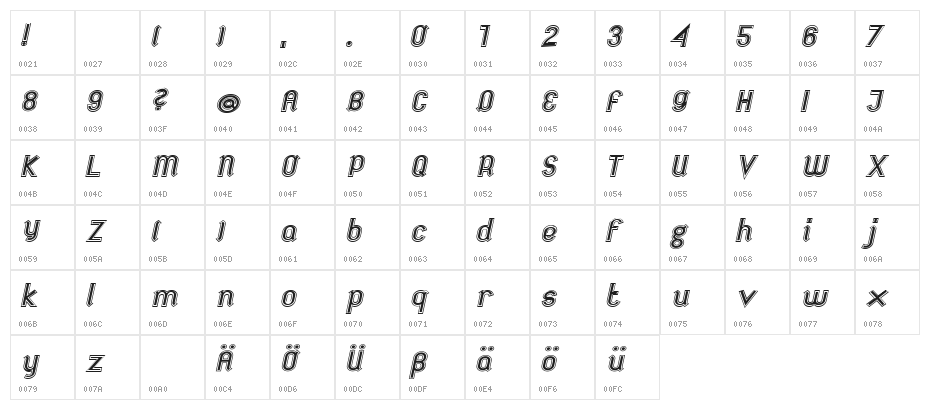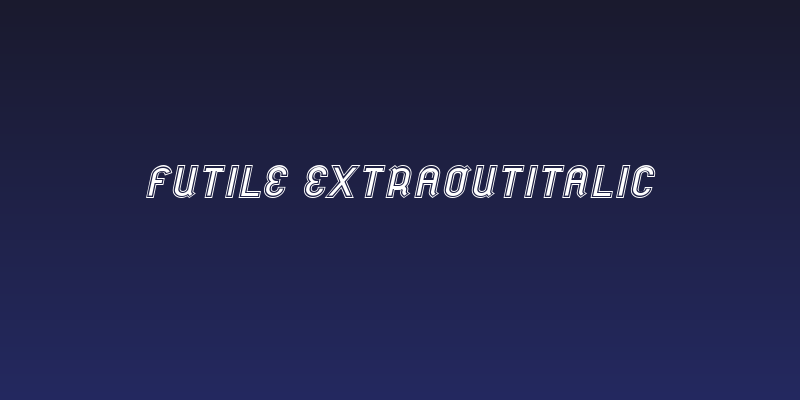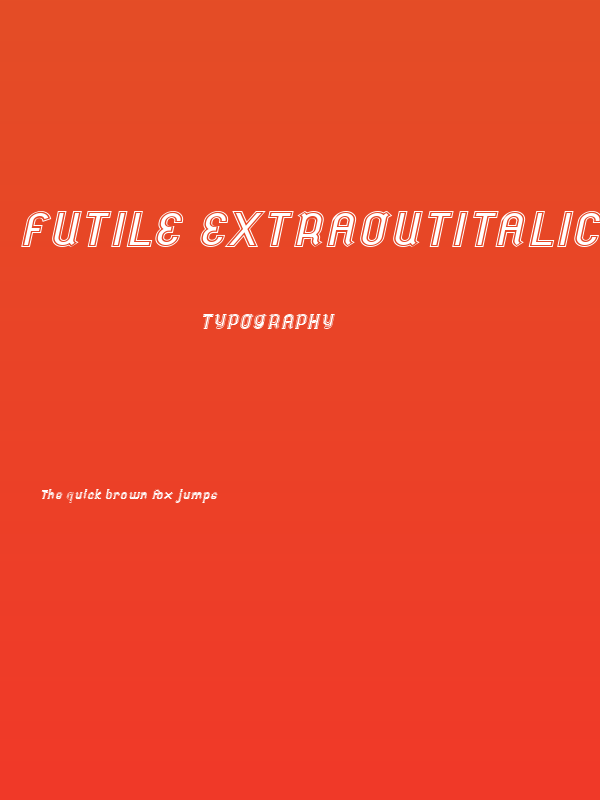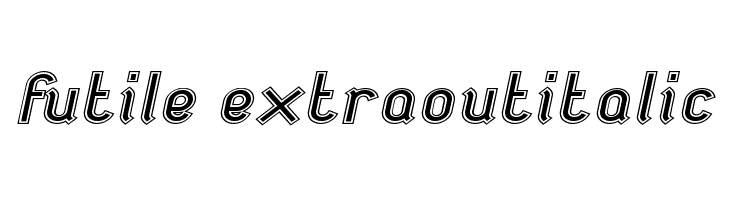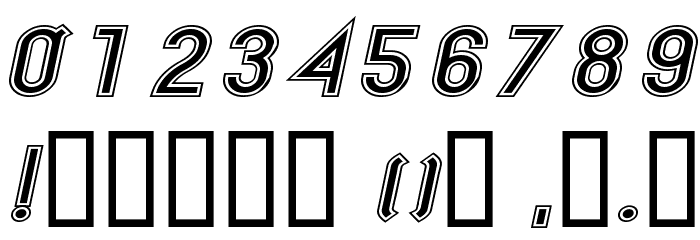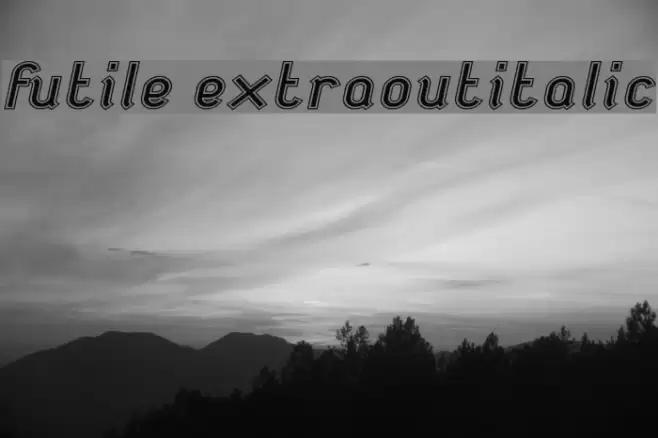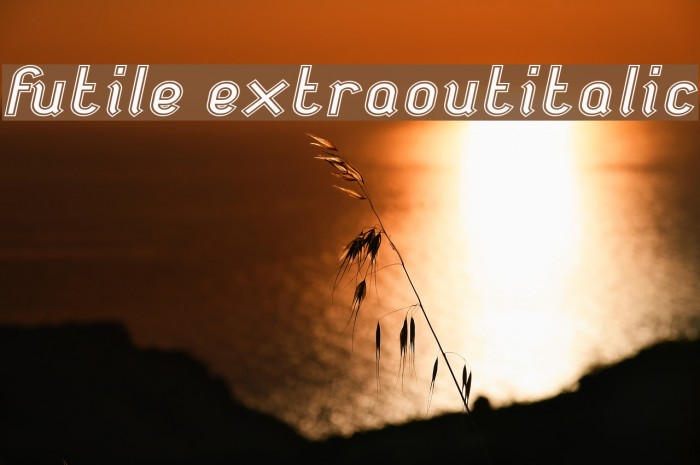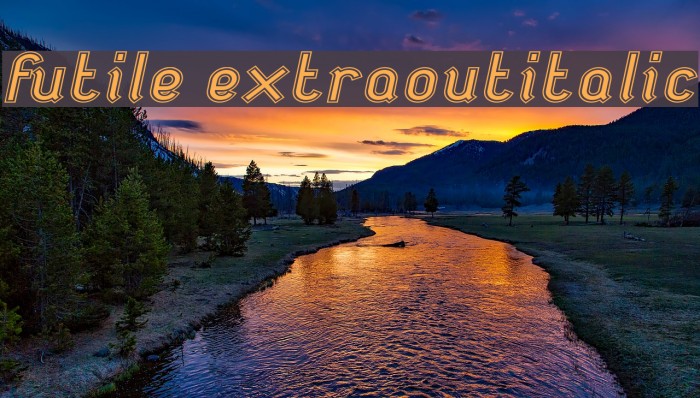
futile extraoutitalic Font
futile extraoutitalic Description
This font features a bold and dynamic design with a distinct outline that gives each character a three-dimensional appearance. The uppercase and lowercase letters maintain a consistent style, with smooth curves and sharp angles that create a sense of movement and energy. The numerals are equally bold, ensuring readability and impact. Special characters are designed with the same attention to detail, making them stand out. The overall look is modern and eye-catching, suitable for projects that require a strong visual presence.
| Proposed Projects | Ideal for branding, posters, headlines, and any design that requires a striking and modern typeface. |